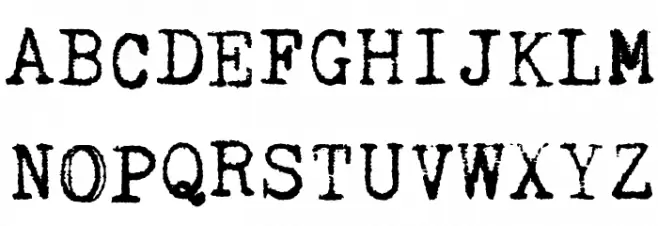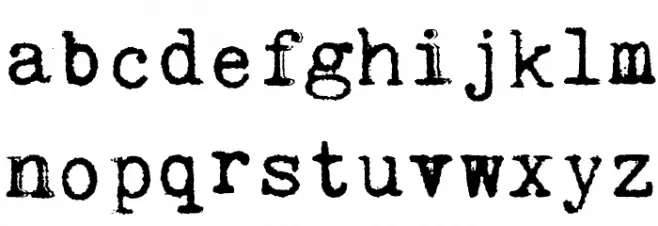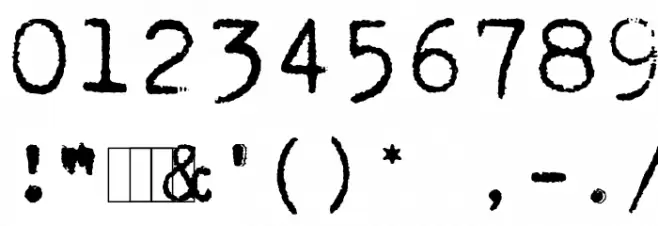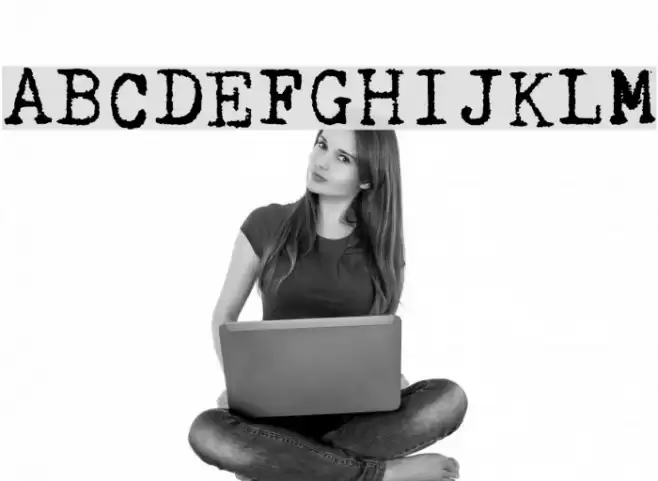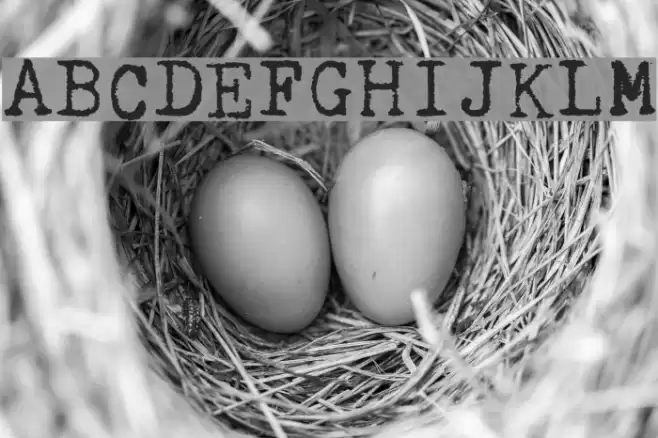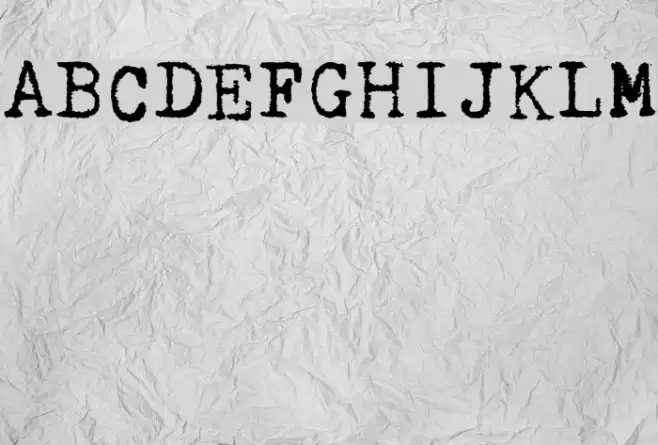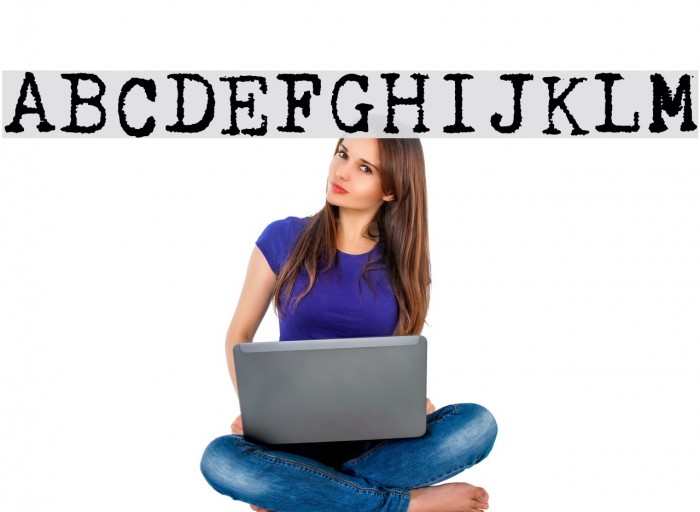
Kingthings Trypewriter
This typewriter-style font exudes a vintage charm with its uneven, slightly distressed appearance, reminiscent of old typewritten documents. Each character is unique, with subtle variations that add to its authentic, worn look. The uppercase and lowercase letters maintain a consistent style, while the numbers and special characters complement the overall aesthetic. The font's texture gives it a tactile quality, making it ideal for projects that require a retro or handcrafted feel. Its distinct personality makes it stand out, perfect for creative designs that aim to evoke nostalgia or a sense of history.
A vintage typewriter-style font with a distressed, authentic appearance.
- Proposed Projects: Ideal for vintage-themed designs, retro posters, book covers, and creative projects that require a nostalgic touch.
- Category: Monospaced
- Overall Style: Vintage
- Use Case: Headlines, Logos, Creative projects